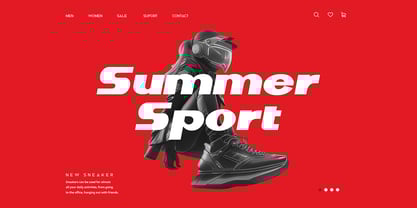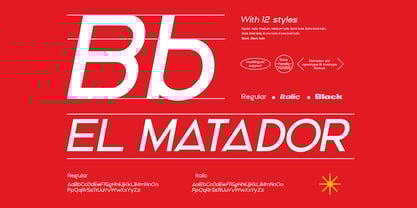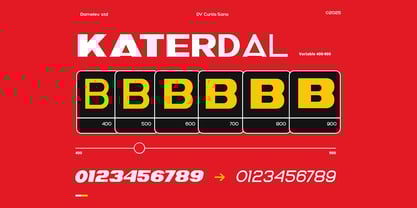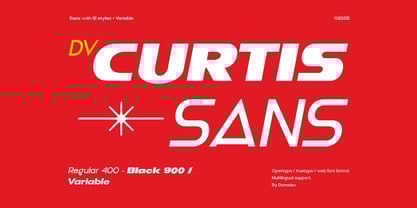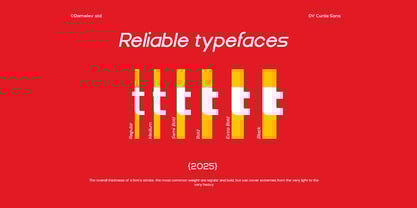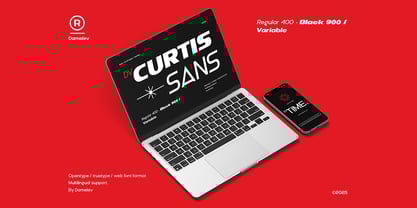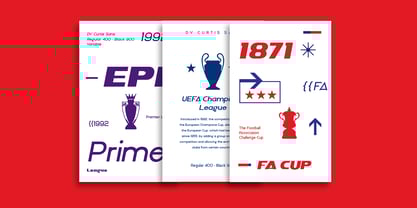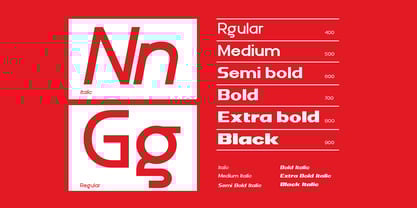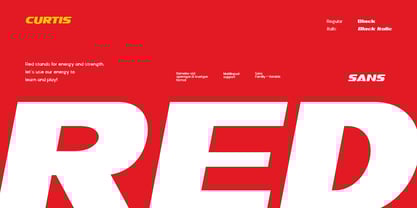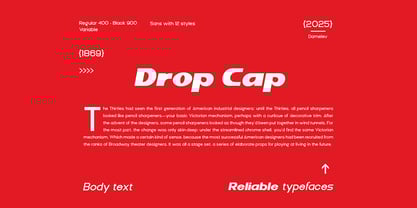
DV Curtis Sans
DV Curtis Sans is a sans-serif font designed for display, particularly large point sizes. Its sporty design makes it very suitable for product designs that want to highlight the impression of enthusiasm, assertiveness, strength, agility and power.
DV Curtis Sans has a strong character that makes it look impressive when large and gives an elegant look to any title.
It works perfectly for creative project such as logo, UI UX design, T-shirt / apparel, badge, invitation, packaging, headline, poster, magazine, greeting card, and wedding invitation. You can access the open type features and multilingual on mostly Adobe programs, such as Adobe Indesign, Adobe Illustrator, Adobe photoshop. etc